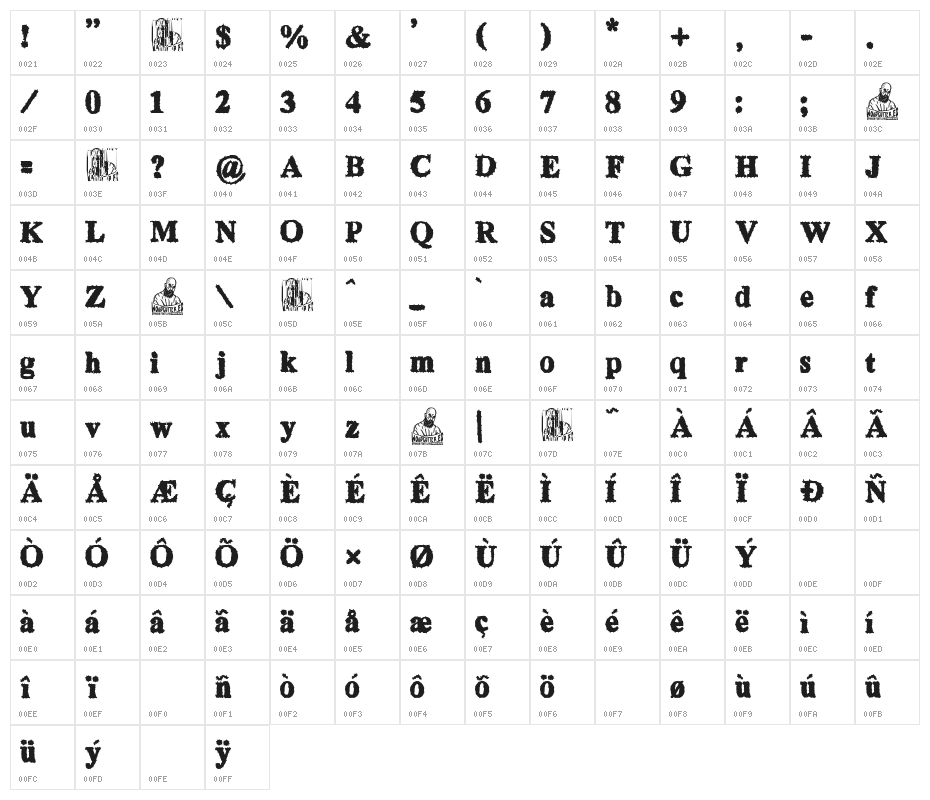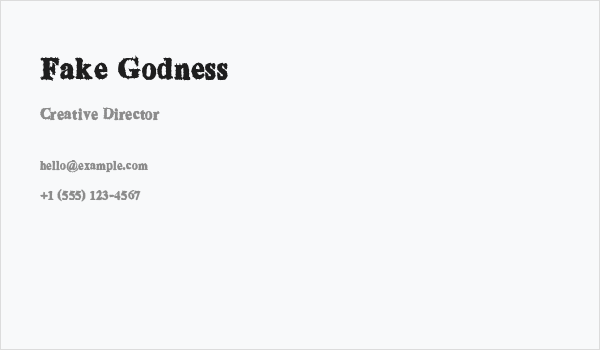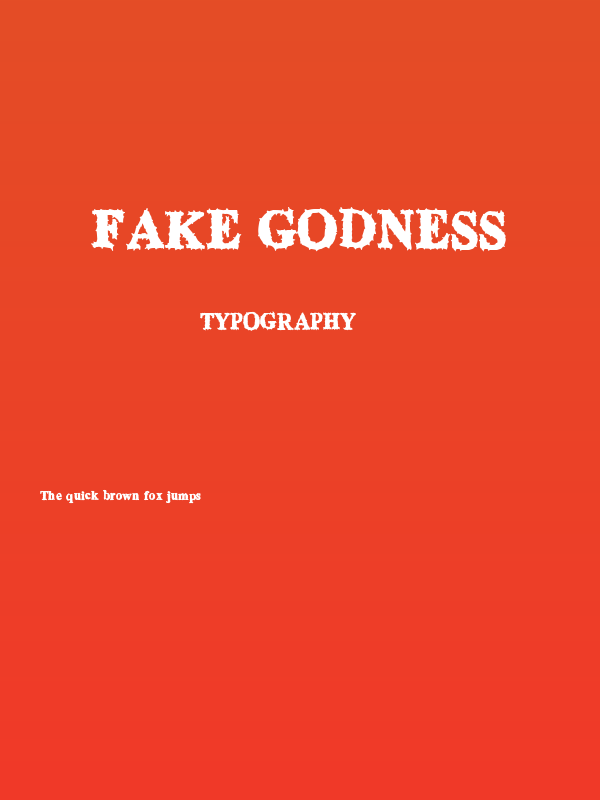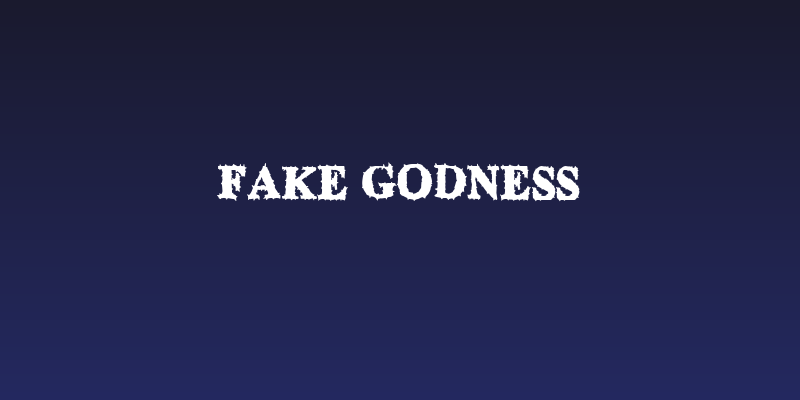
Fake Godness Font
Fake Godness Description
A bold, distressed serif font with rough, jagged edges and a heavy, textured appearance. The characters are wide and have a dramatic, grungy style, giving a sense of intensity and impact.
| Overall Style | Decorative, Grunge, Dramatic |
| Use Case | Headlines, Posters, Logos, Themed graphics |
| Proposed Projects | Horror posters, Halloween invitations, edgy branding, music album covers, dramatic headlines. |